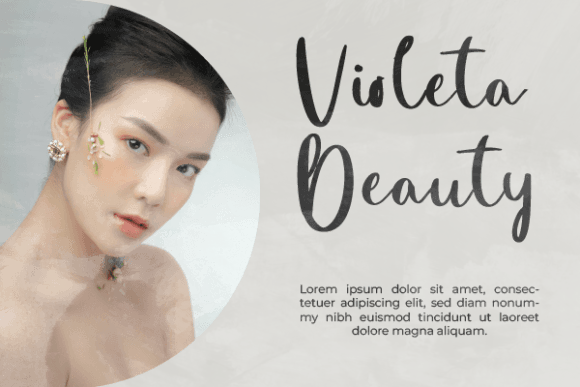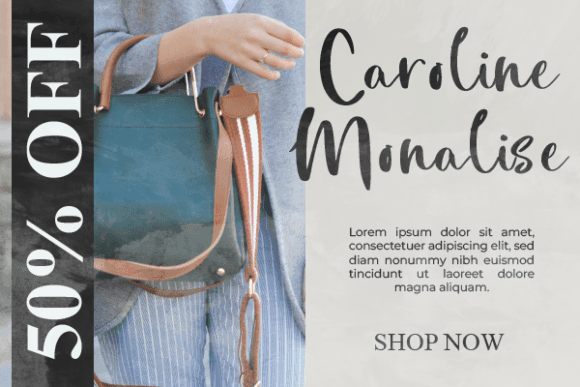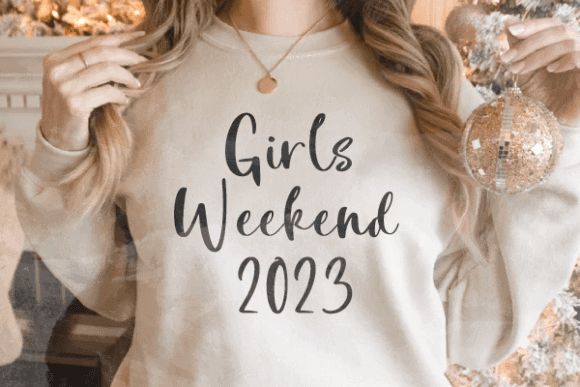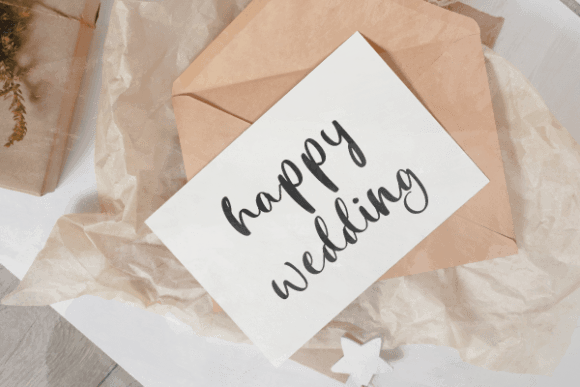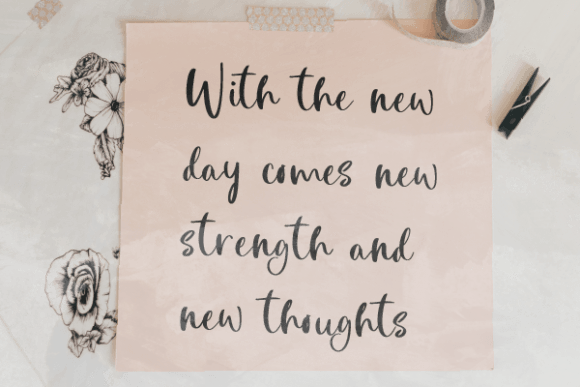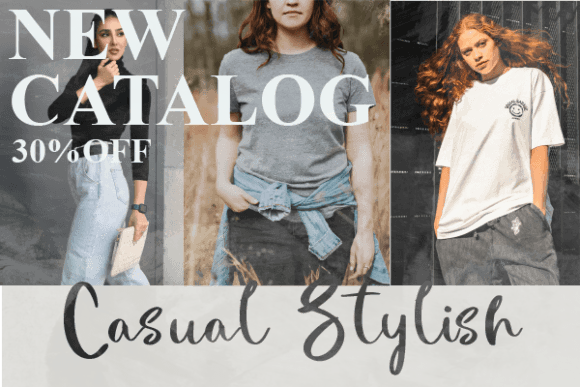
Discover the Elegance of Gabrielle Melanie Font
Are you a designer or crafter looking for a font that exudes charm and sophistication? Look no further than the Gabrielle Melanie Font. This beautiful handwritten font is perfect for adding a touch of elegance to any design project. In this article, we’ll explore the features and benefits of Gabrielle Melanie Font, and why it’s a must-have for any creative looking to add a personal touch to their work.
What is Gabrielle Melanie Font?
Gabrielle Melanie Font is a stunning handwritten font that feels equally charming and elegant. Its unique and flowing script is perfect for a variety of design projects, from wedding invitations and thank you cards to quotes, greeting cards, logos, business cards, and more. With its delicate and cursive strokes, Gabrielle Melanie Font adds a touch of sophistication and whimsy to any design.
Features of Gabrielle Melanie Font
- Handwritten touch: Gabrielle Melanie Font has a beautiful, handwritten feel that adds a personal touch to any design.
- Elegant and charming: The font’s unique and flowing script makes it perfect for designs that require a touch of sophistication and charm.
- Versatile: Gabrielle Melanie Font can be used on a variety of design projects, from wedding invitations and greeting cards to logos and business cards.
- Easy to read: Despite its elegant and cursive strokes, Gabrielle Melanie Font is easy to read and understand, making it perfect for designs that require a clear and concise message.
Why Designers and Crafters Love Gabrielle Melanie Font
Gabrielle Melanie Font has become a favorite among designers and crafters for several reasons. Firstly, its unique and elegant script adds a touch of sophistication to any design, making it perfect for high-end clients or special occasions. Secondly, the font’s versatility makes it suitable for a wide range of design projects, from digital designs to print materials. Finally, Gabrielle Melanie Font is easy to use and pairs well with other fonts, making it a great addition to any designer’s toolkit.
Using Gabrielle Melanie Font in Your Designs
Gabrielle Melanie Font is perfect for a variety of design projects, including:
- Wedding invitations: Add a touch of elegance and sophistication to your wedding invitations with Gabrielle Melanie Font.
- Thank you cards: Show your appreciation with beautifully designed thank you cards featuring Gabrielle Melanie Font.
- Quotes and posters: Use Gabrielle Melanie Font to add a touch of whimsy and elegance to your quotes and posters.
- Greeting cards: Create beautiful and heartfelt greeting cards with Gabrielle Melanie Font.
- Logos and branding: Use Gabrielle Melanie Font to add a touch of sophistication and elegance to your logos and branding materials.
- Business cards: Stand out from the crowd with beautifully designed business cards featuring Gabrielle Melanie Font.
Tips for Using Gabrielle Melanie Font
Here are a few tips for using Gabrielle Melanie Font in your designs:
- Pair with other fonts: Gabrielle Melanie Font pairs well with other fonts, so don’t be afraid to experiment with different combinations.
- Use on high-end designs: Gabrielle Melanie Font is perfect for high-end designs, such as luxury branding and wedding invitations.
- Experiment with colors: Gabrielle Melanie Font looks great in a variety of colors, so don’t be afraid to experiment with different hues and shades.
Gabrielle Melanie Font is a beautiful and elegant handwritten font that adds a touch of sophistication and charm to any design project. Its versatility, ease of use, and stunning script make it a must-have for any designer or crafter looking to add a personal touch to their work. Whether you’re designing wedding invitations, greeting cards, or logos, Gabrielle Melanie Font is the perfect choice.